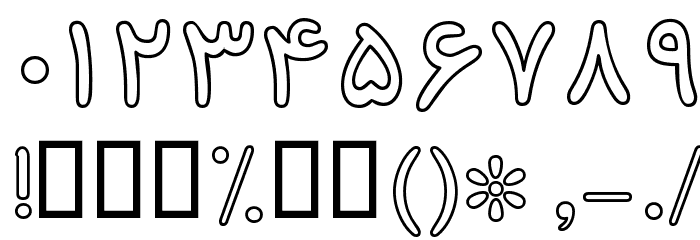
Oshtok Outline Font
This font features a unique outline style, characterized by its hollow, geometric shapes that create a modern and striking appearance. The uppercase and lowercase letters maintain a consistent width, providing a uniform look across the alphabet. The numbers and special characters follow the same outline design, ensuring cohesion throughout. The font's clean lines and open spaces make it highly legible, even at smaller sizes. Its distinctive style is both contemporary and versatile, suitable for a variety of design applications.
A modern, outline-style font with geometric shapes and consistent width.
- Proposed Projects: Ideal for branding, poster design, digital media, and creative projects requiring a modern touch.